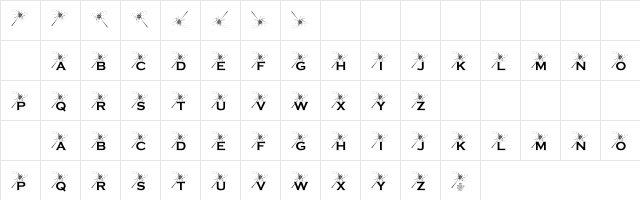
KR Twink Two Regular Font Preview
KR Twink Two Regular
Design Context for KR Twink Two Typeface
KR Twink Two is a composed and adaptable typeface that performs quietly and consistently across a wide range of design contexts.